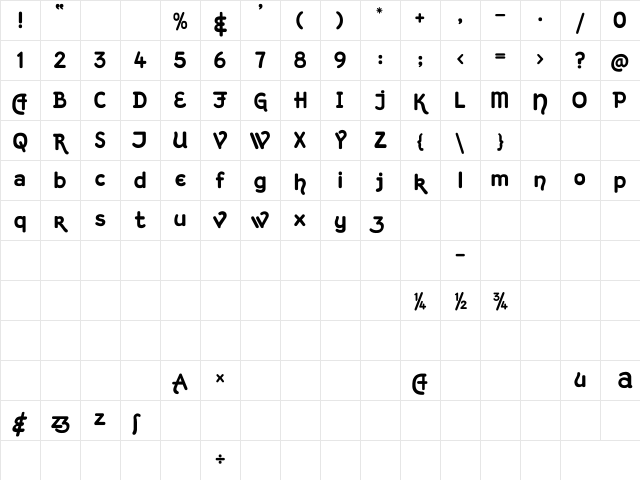
Kingthings Hand Regular
Designer: Kevin King
Design Context for Kingthings Hand
Kingthings Hand flows with the natural rhythm of handwritten lettering, making it ideal for designs that call for warmth and personal expression. Its slender proportions lend an understated elegance to any composition.
Font Pairing: Combine Kingthings Hand with a simple geometric sans for maximum contrast - the tension between flowing curves and clean structure is a classic typographic pairing.
Pro Tip: Use Kingthings Hand for short runs of text - names, titles, or taglines. Extended body copy in script faces tires the eye quickly.